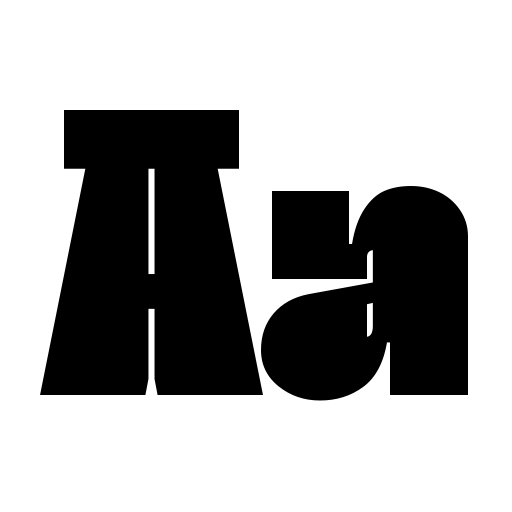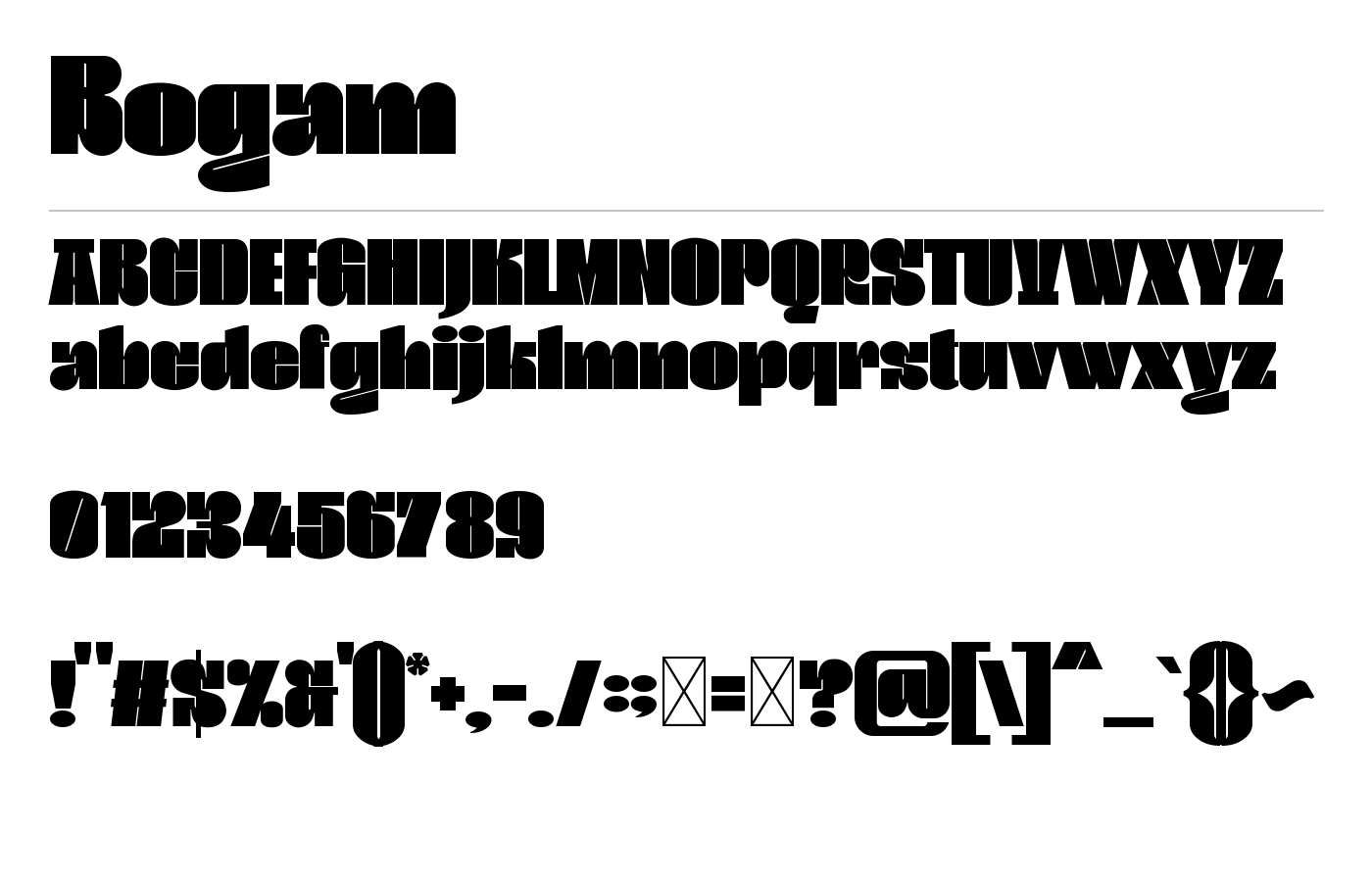
Bogam is a bold and condensed serif font with a strong, modern presence characterized by thick strokes and unique, angular serifs. Its heavy weight and narrow width make it ideal for striking headlines and impactful logos, conveying a sense of confidence and style that suits fashion branding and editorial design. This font stands out with its sharp, geometric shapes and high-contrast letterforms, perfect for grabbing attention in print and digital formats.
Bogam Font
About Bogam Font
| Font family | Bogam Font |
| Designer | Reza Rasenda |